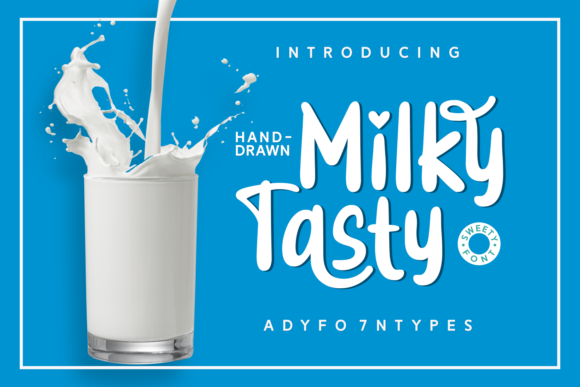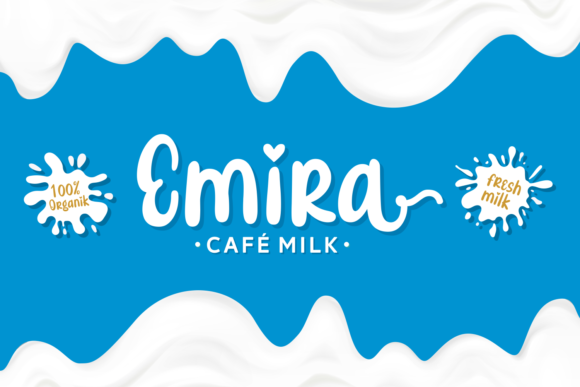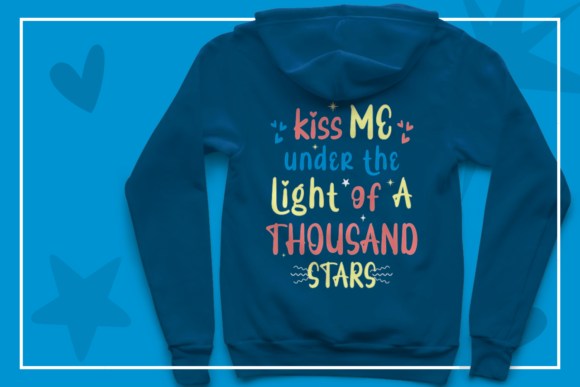
HomeScript FontsMilky Tasty Font Script Fonts Milky Tasty Font FacebookXPinterestWhatsApp Milky Tasty Font Poster 2 Milky Tasty Font Poster 3 About Milky Tasty Font Milky Tasty is a beautiful handwritten font with a whimsical twist! Get inspired by its cute and adorable feel. DOWNLOAD NOW People also explored Mommy Font Mellow Owl Font Mutually Beneficial Font Wishper Script Font Takeme Font Smartgeek Font Athena Font Smart Student Font Sweetness Marshmallow Duo Font 293 0 TagsMilky Tasty Font Previous articleMaybe Yes FontNext articleDirabela Font Font LEAVE A REPLY Cancel reply Comment: Please enter your comment! Name:* Please enter your name here Email:* You have entered an incorrect email address! Please enter your email address here Website: Save my name, email, and website in this browser for the next time I comment. Personal Use Free Letter Hanger Personal Use Free Read more about this font Adriator Personal Use Free Read more about this font Roustel Personal Use Free Read more about this font The Sweet Neo Personal Use Free Read more about this font BLOG Where to Buy American Fonts Online in 2024 Where to Buy American Fonts Online: The Ultimate Guide for 2024 Looking for the perfect American font to elevate your design projects? You're in the... Exploring Font Trends 5 Fonts That Will Dominate Design Trends in 2026 Transform Your Website: Elevate Your Typography with 7 Best Web Font Generators